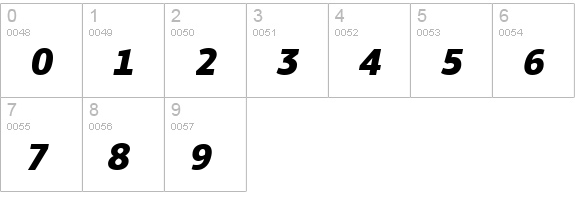
PFBulletinSansPro-BlackItalic font is a bold and striking typeface that exudes a sense of power and sophistication. Its sleek design and slanted italics convey a sense of modernity and style, making it perfect for creating eye-catching headlines and attention-grabbing designs. This font is not only visually appealing but also highly versatile, suitable for a wide range of design projects including branding, advertising, and editorial layouts. The strong, bold strokes of PFBulletinSansPro-BlackItalic make it ideal for making a bold statement and commanding the viewer's attention. Best of all, this font is available for free download at FontsMarket.com, making it accessible to designers and creatives looking to elevate their projects with a touch of elegance and flair. Don't miss out on this opportunity to enhance your designs with the bold and impactful PFBulletinSansPro-BlackItalic font.